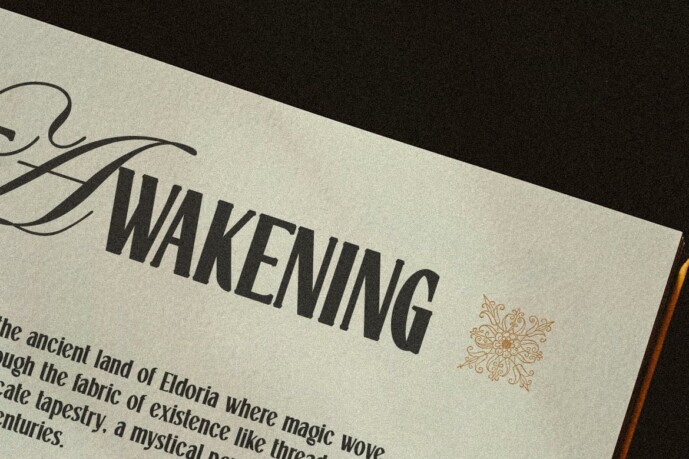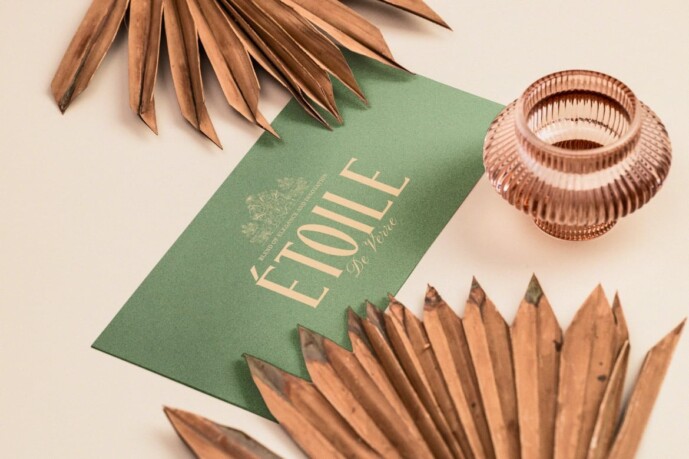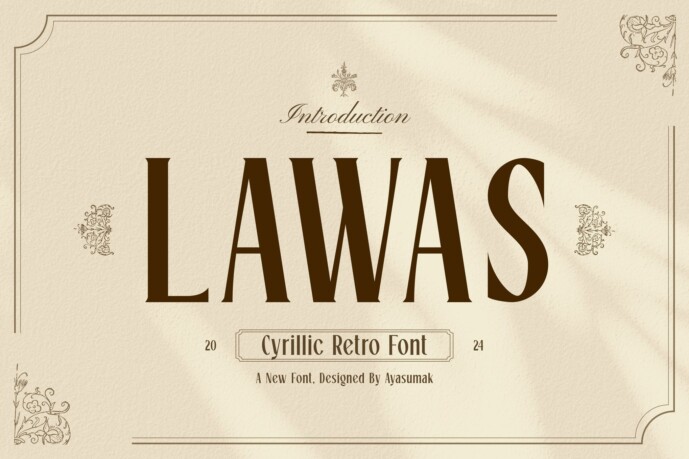
Lawas Font
Designer: ayasumak
Lawas Font – Retro Cyrillic Font – a modern professional typeface ideal for headline or title, logotype, merchandise, apparel, magazines, business, sports, events, tickets and many more.